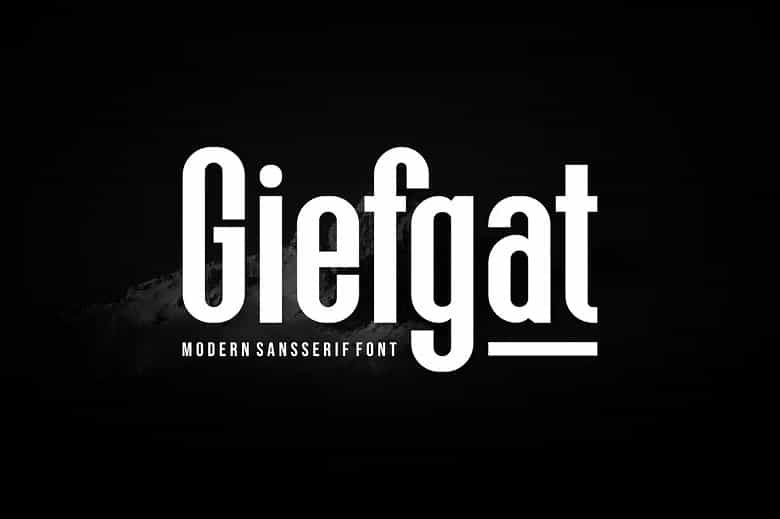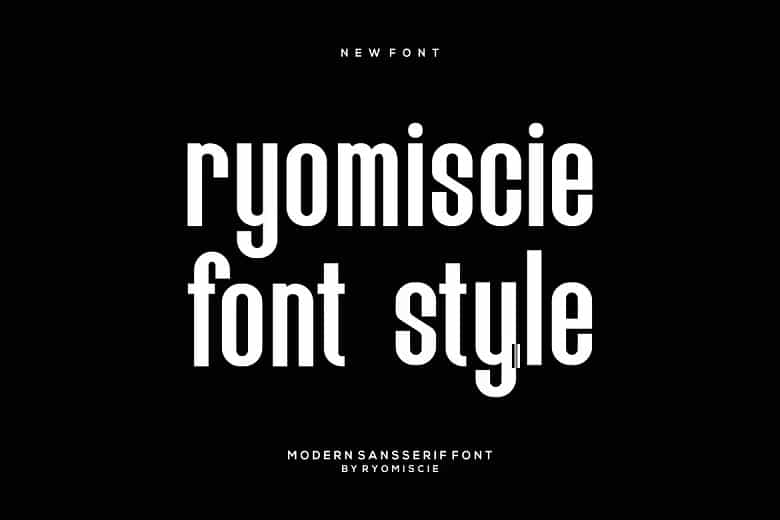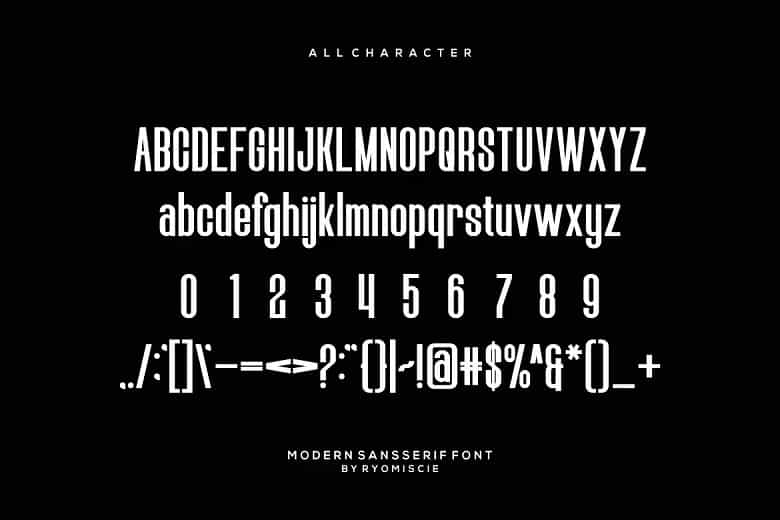
Giefgat is a bold and real sans serif font. This font is suitable for any branding project such as Logo, t-shirt printing and many other projects including Esports. Good in many different situations.